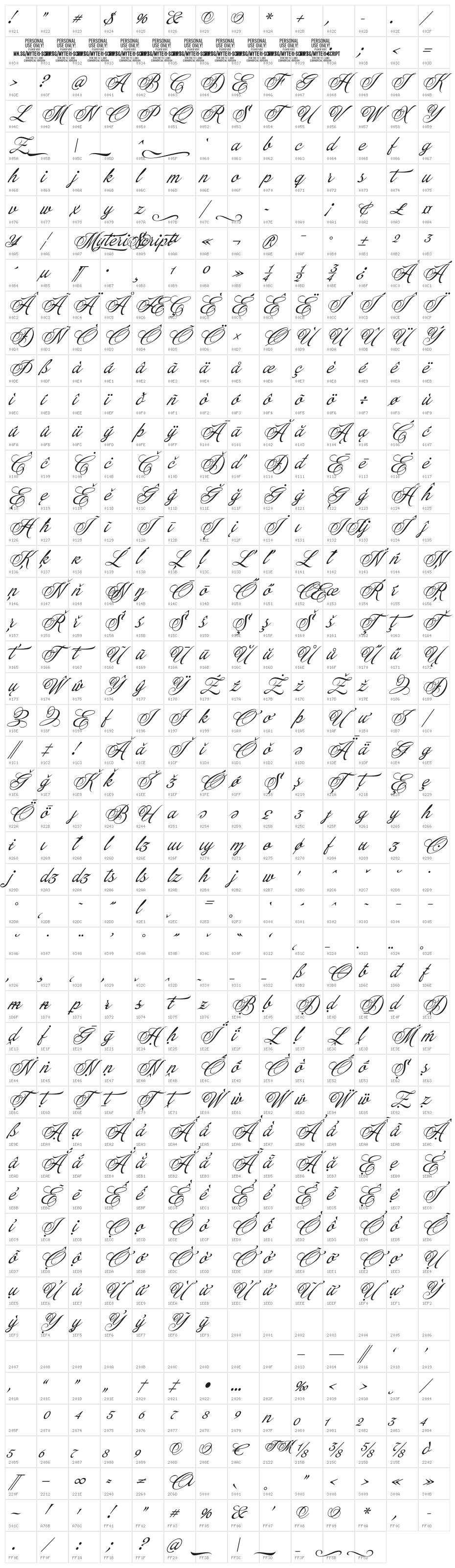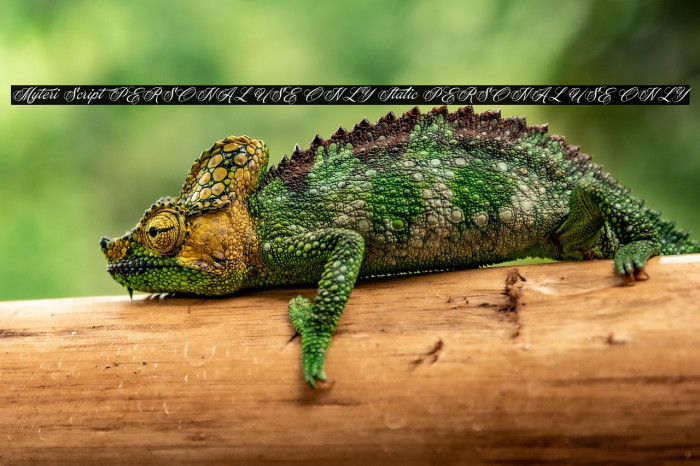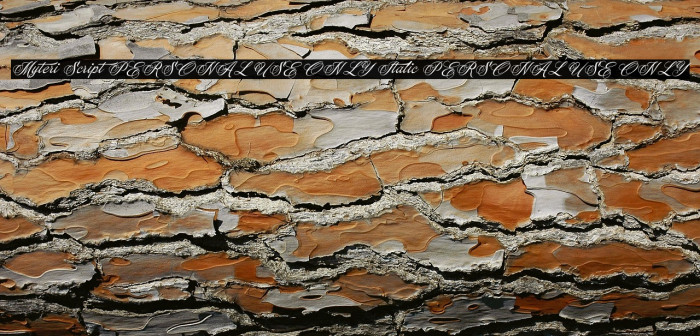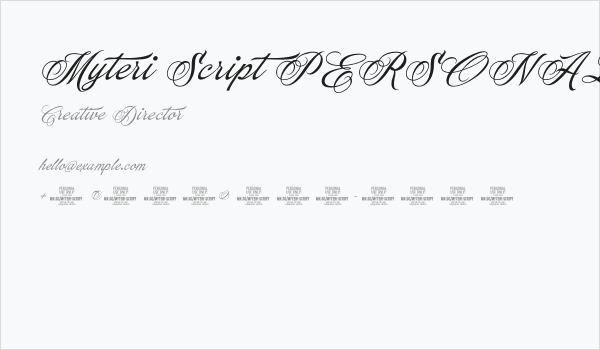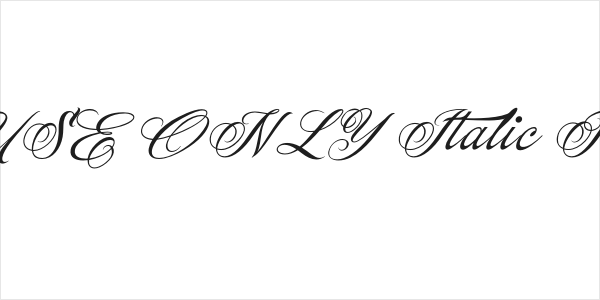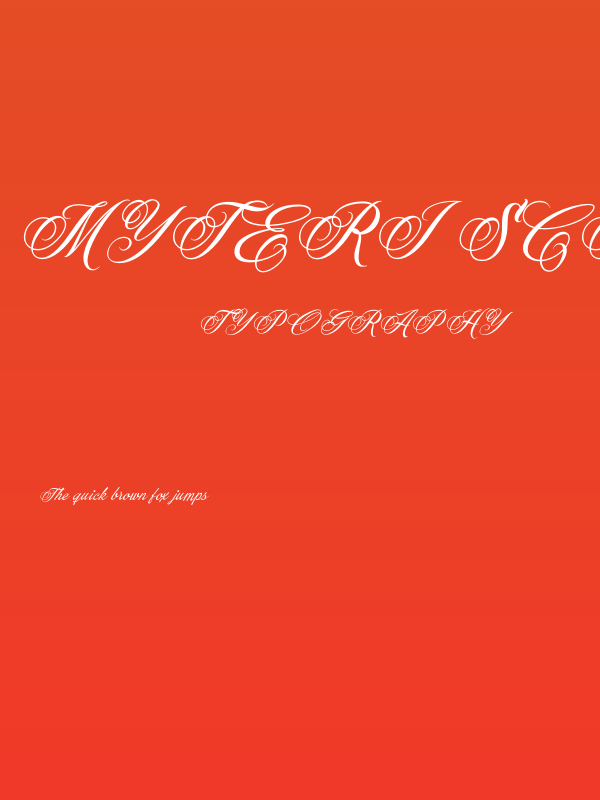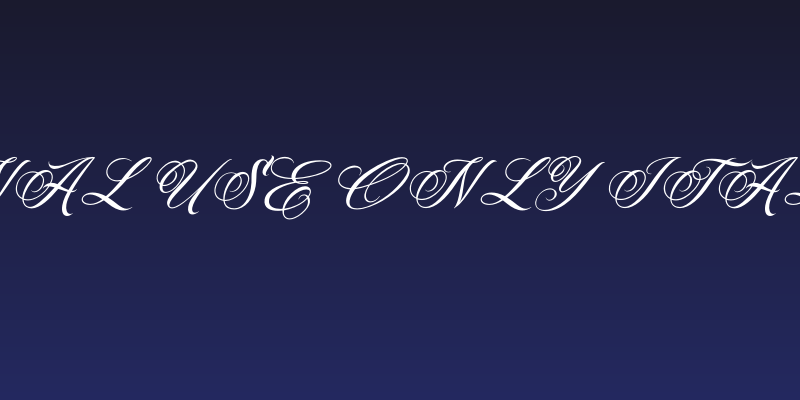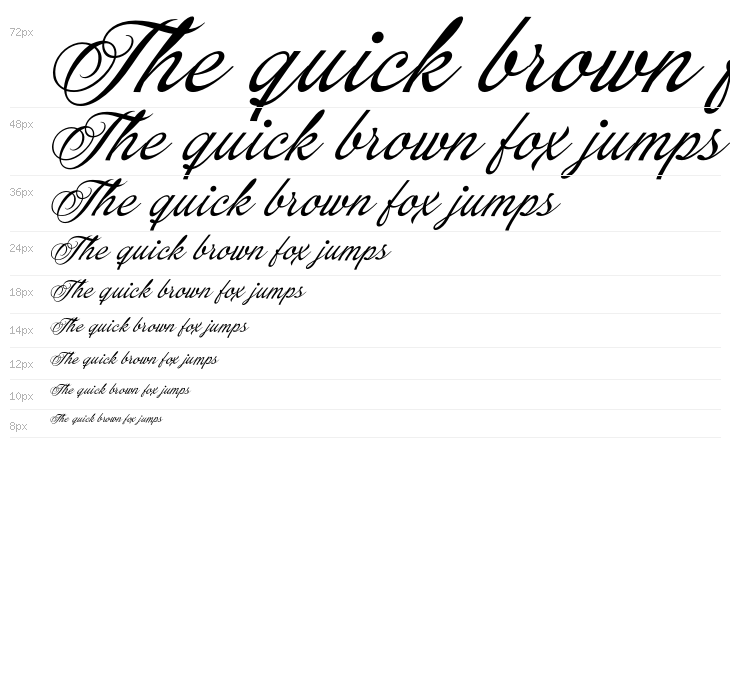
Myteri Script PERSONAL USE ONLY Italic PERSONAL USE ONLY Font
Myteri Script PERSONAL USE ONLY Italic PERSONAL USE ONLY Description
This elegant script font features a flowing, cursive style with intricate loops and swashes, giving it a sophisticated and artistic appearance. The uppercase letters are particularly ornate, with elaborate flourishes that add a touch of grandeur. The lowercase letters maintain a consistent slant, enhancing the font's fluidity and grace. The numerals and special characters are designed to complement the overall aesthetic, ensuring a cohesive look across all text elements. This font is ideal for projects that require a touch of elegance and refinement.